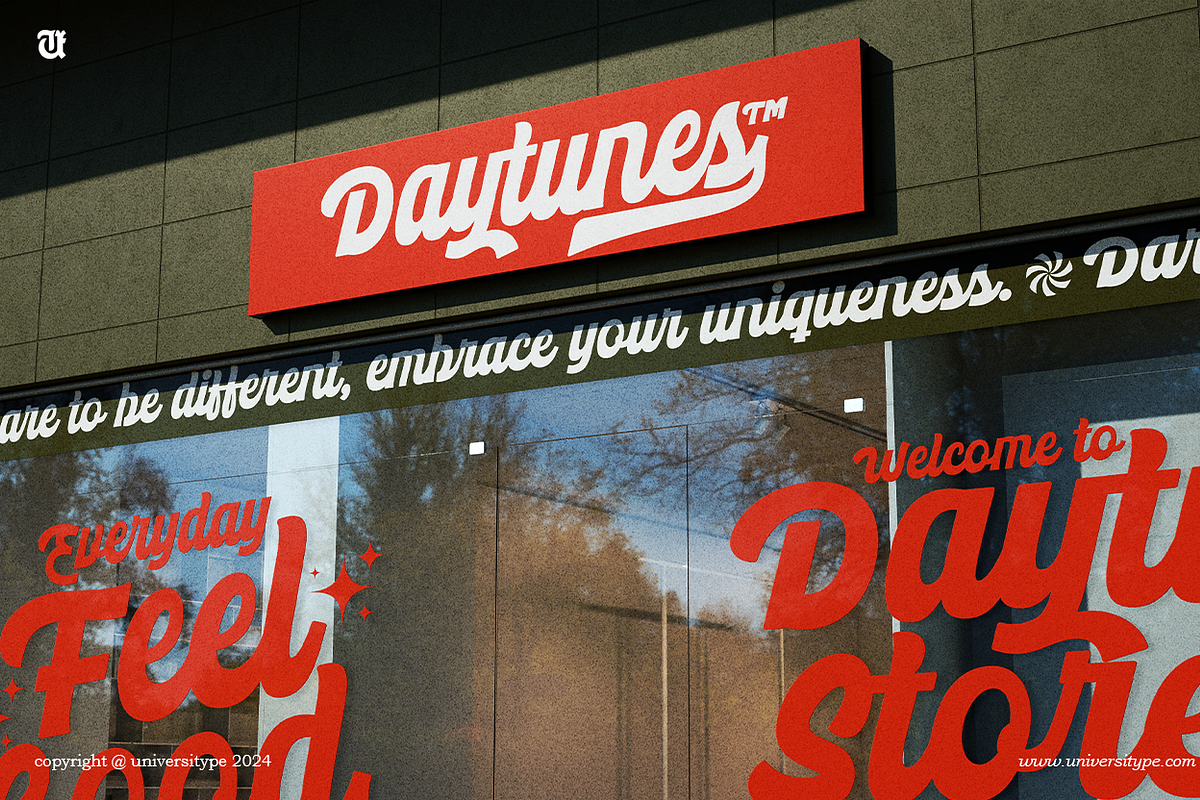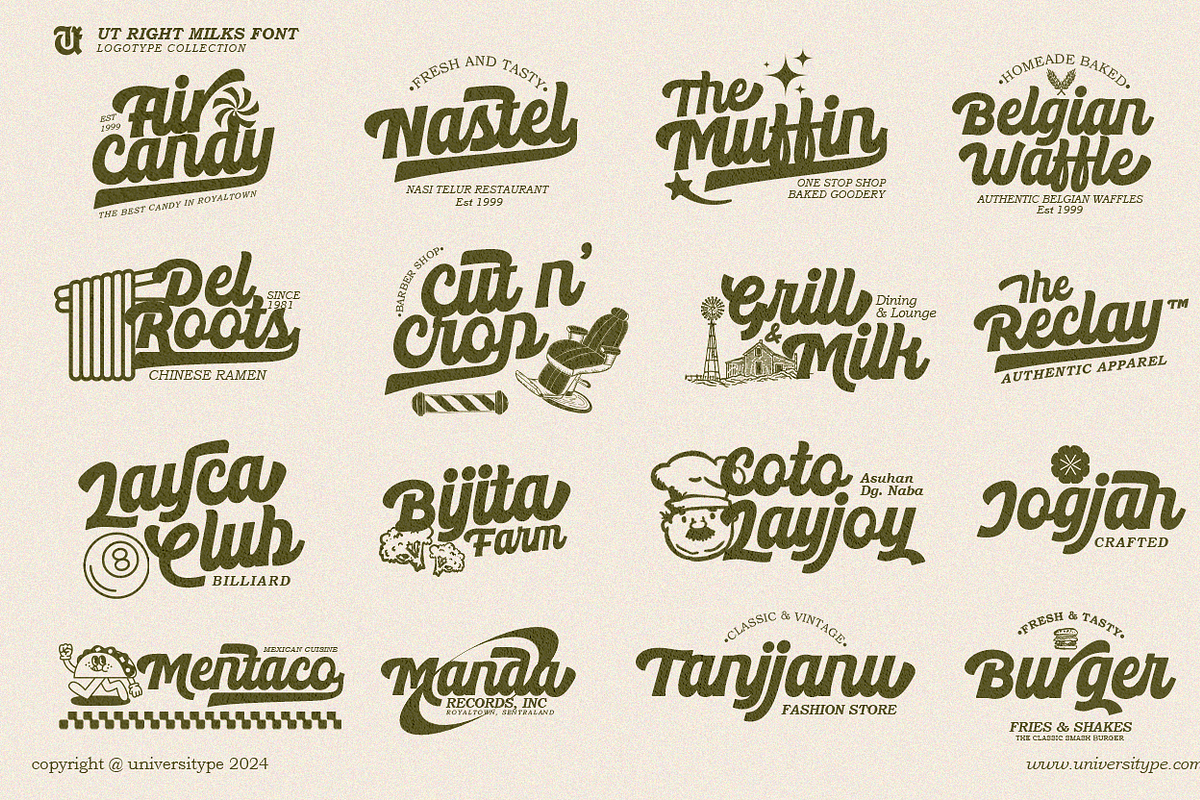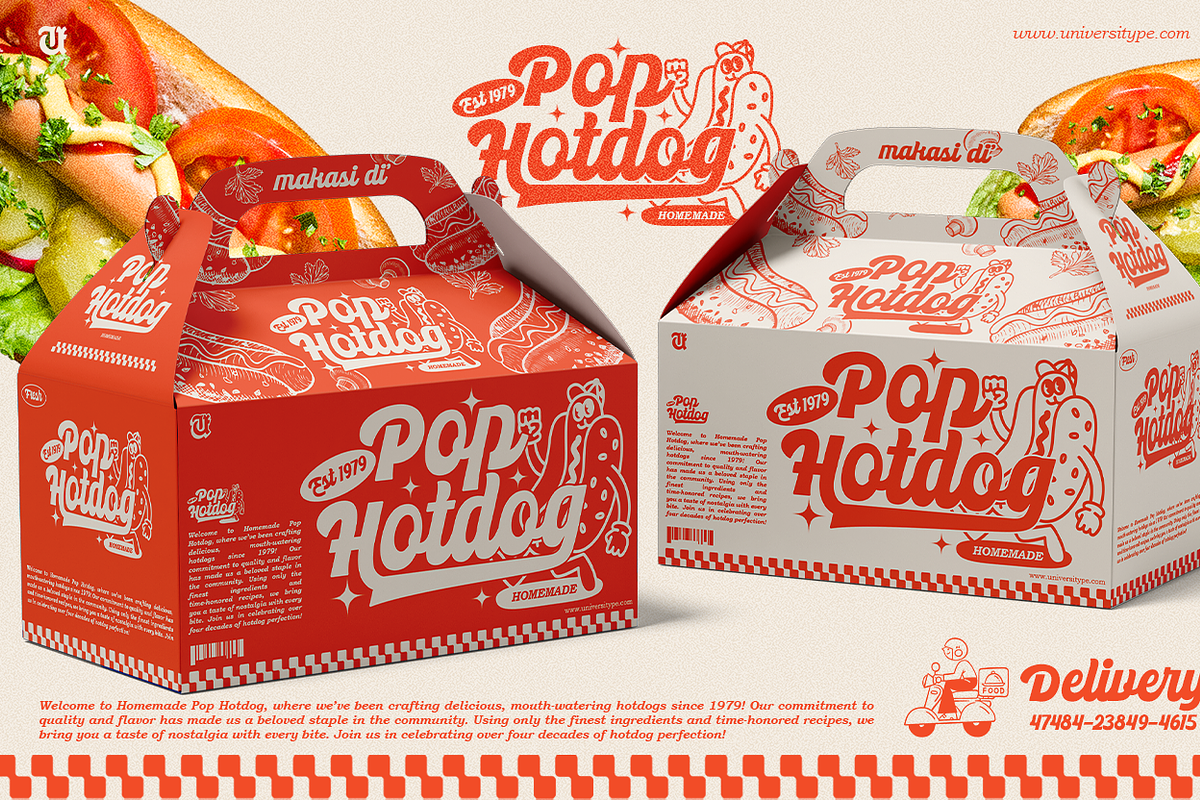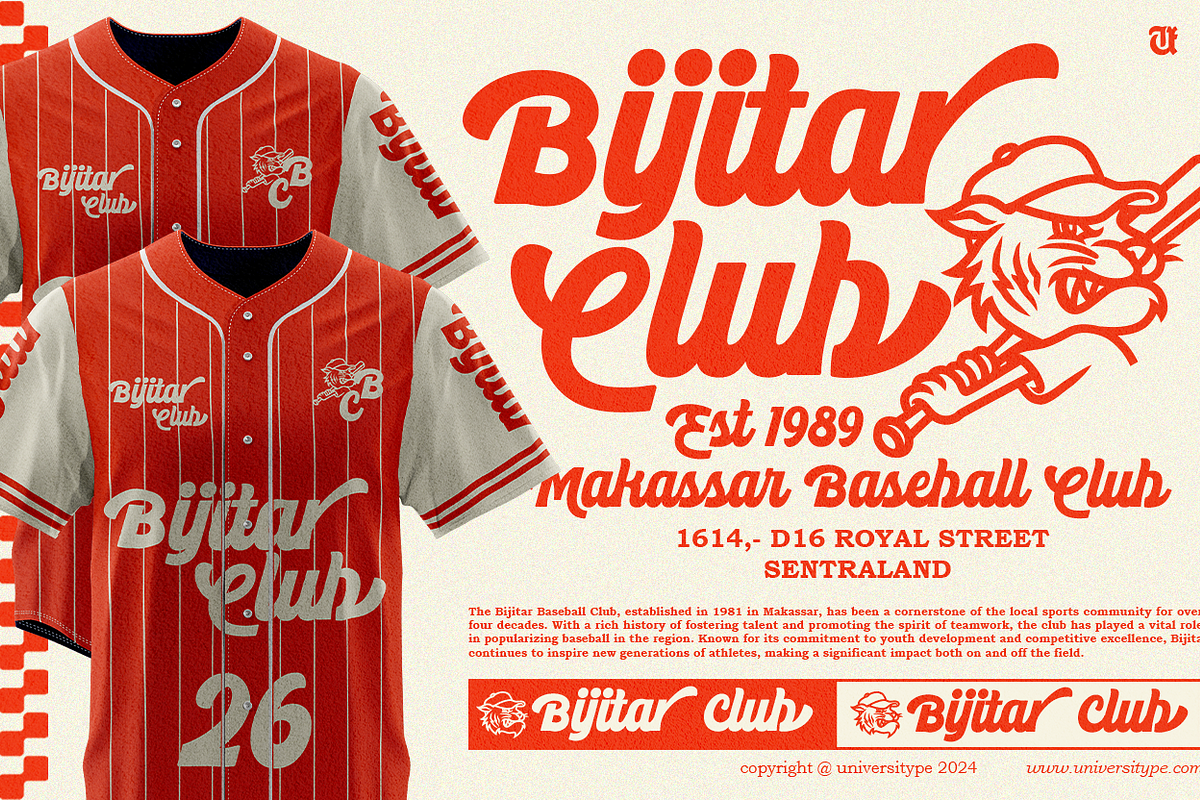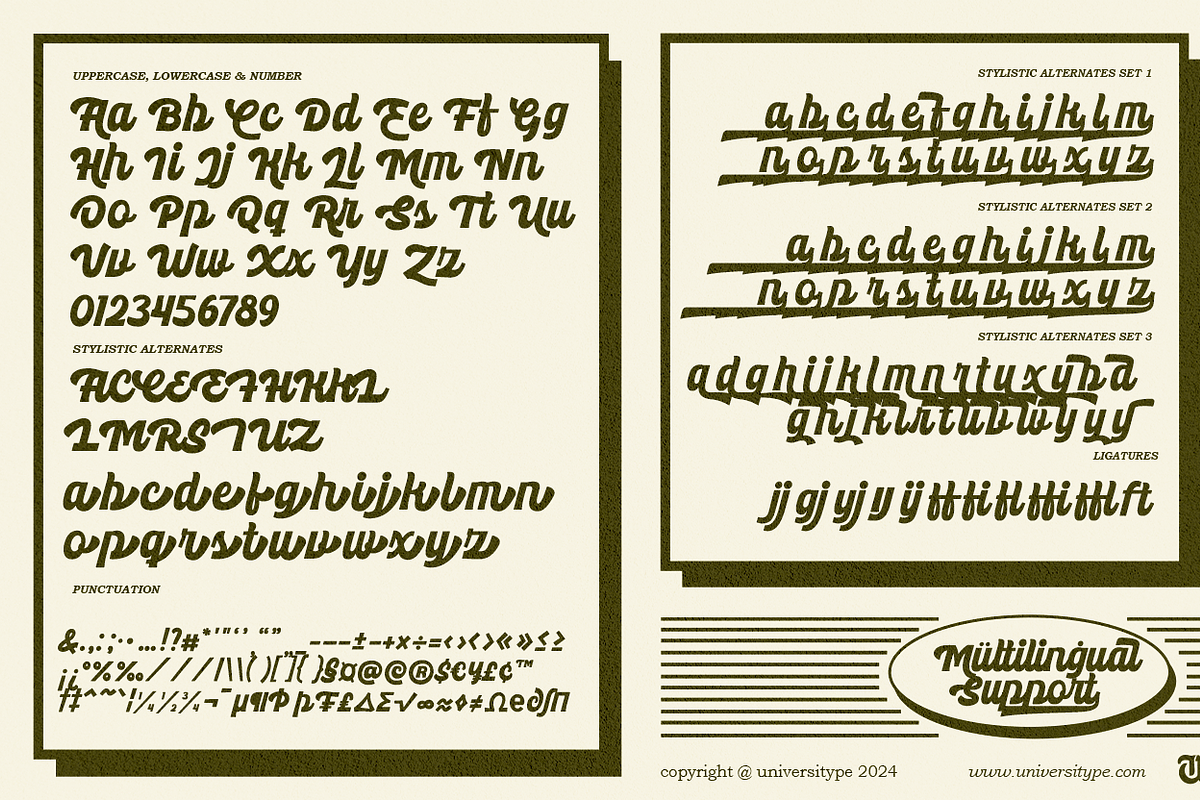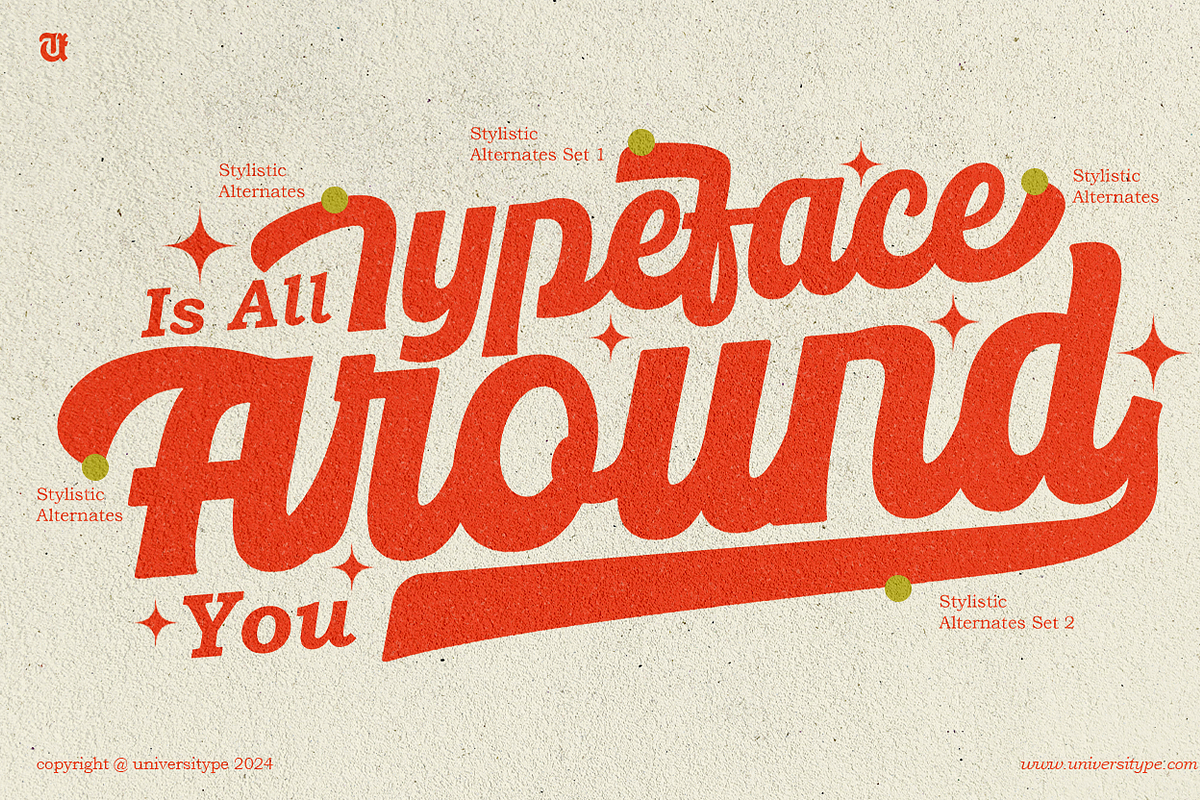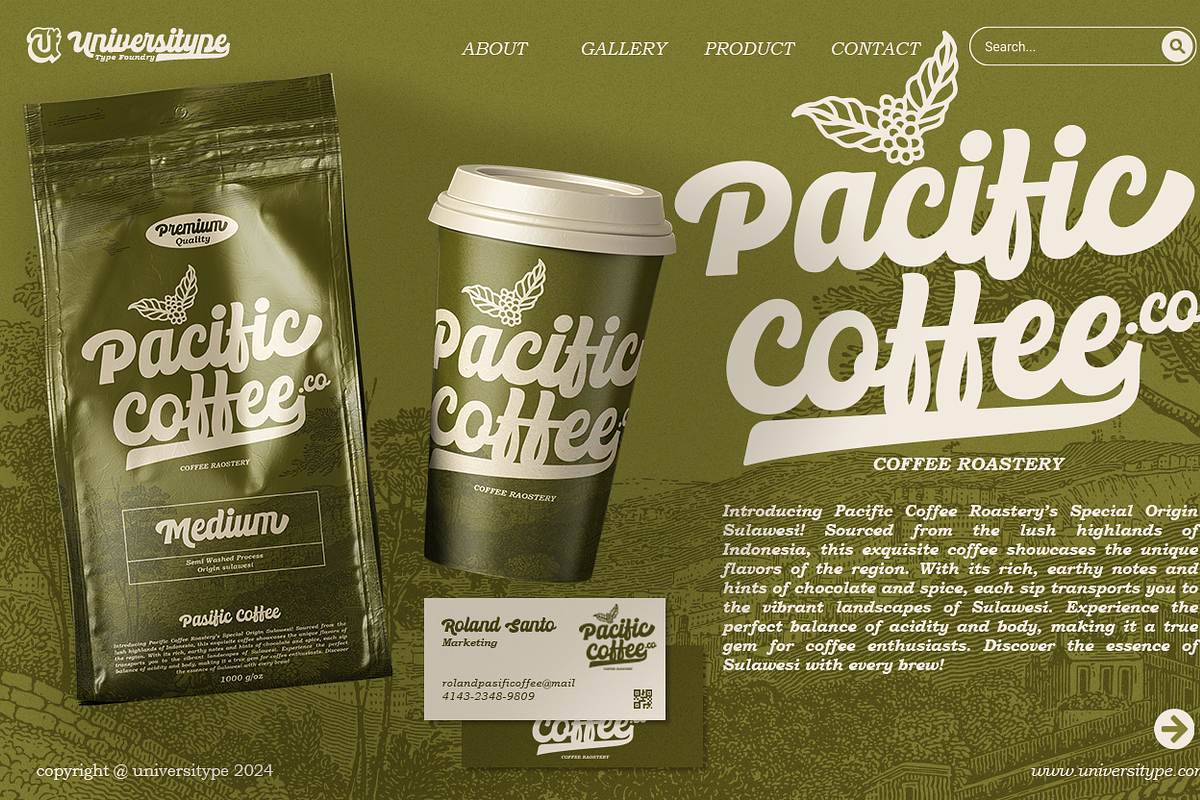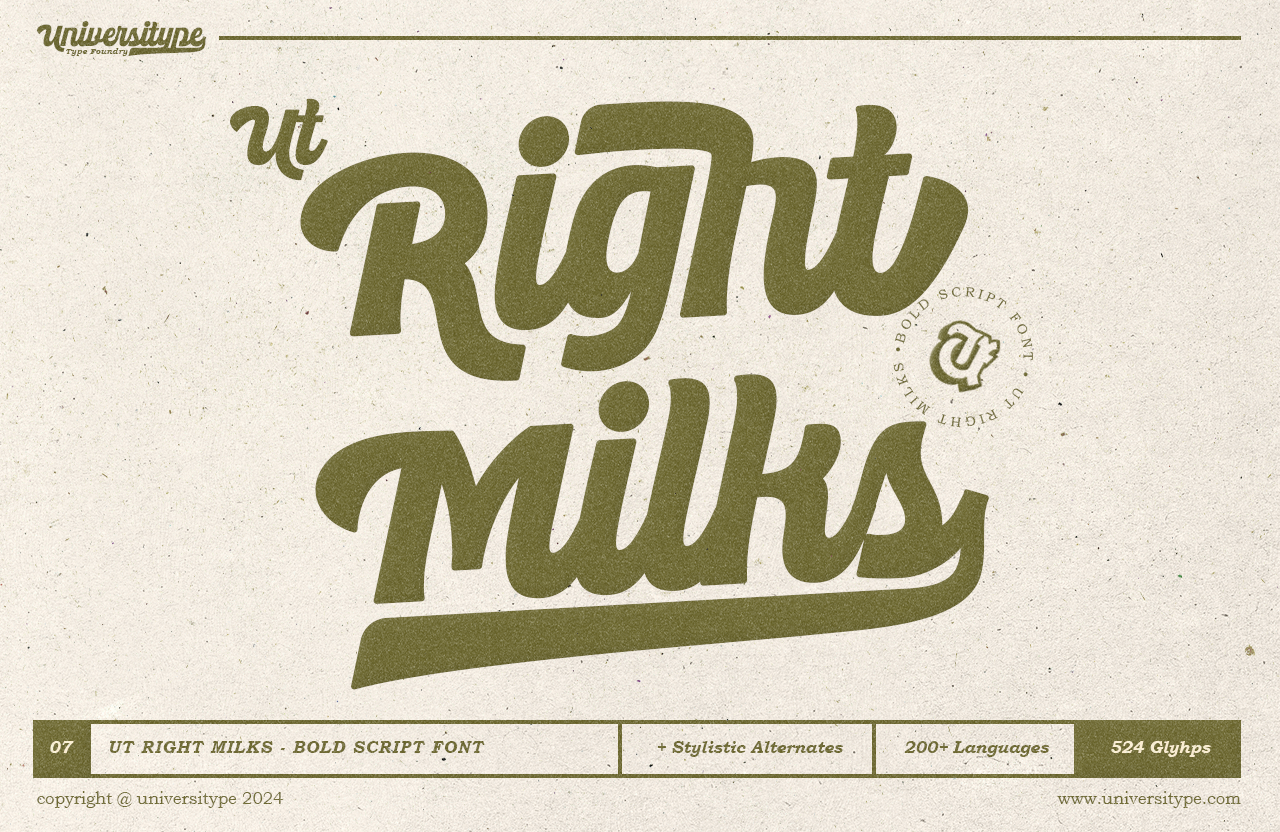
UT Right Milks - A Bold Script Font
UT Right Milks is a bold script font designed to solve a problem for designers: finding a typeface that combines eye-catching boldness with flexibility for a range of creative projects. Traditional bold scripts often lack the versatility and legibility needed for diverse design applications, leaving designers with rigid options that fall flat in branding and digital materials. UT Right Milks addresses this issue by offering a smooth, flowing script with confident strokes, while providing extensive customization features like 524 glyphs, 3 stylistic sets, and ligatures.
This font is the perfect solution for designers facing the problem of repetitive typography or limited creative control. Whether it’s for branding, marketing campaigns, or web design, UT Right Milks makes sure your designs stand out while maintaining readability. Additionally, its support for over 200 languages ensures global reach, resolving the challenge of finding a bold script that works across different markets and audiences.
Target Audience: Branding specialists seeking to elevate logos with a distinctive, bold script. Designers and marketers in need of a versatile, dynamic font for promotional materials. Social media content creators looking for a font that instantly captivates and communicates personality.
- 524 Glyphs: Packed with stylistic alternates, ligatures, and swashes for ultimate creative control.
- Multilingual Support: Supports over 200 languages, ensuring your message reaches a global audience.
- Versatile Styling: Offers 3 stylistic sets for creative variations and enhanced typographic expression.
- Legibility with Style: Maintains clarity in various sizes, from large headlines to smaller body text.
Inspiration Behind the Design: The UT Right Milks brand combines classic style with contemporary adaptability, drawing inspiration from brush lettering and strong sign painting. Projects that require an approachable yet strong vibe will benefit greatly from the rounded, hand-drawn look, which adds character and warmth.
Usage Suggestions:
- Branding & Identity: Ideal for logos, packaging, and labels where bold, stylish script can communicate brand identity.
- Editorial Design: Perfect for magazine headers, brochures, and advertising campaigns needing a bold statement.
- Web & Digital Media: Adds character to website headers, social media posts, and promotional banners.
- Merchandising: Great for apparel, accessories, and product packaging with a bold, playful flair.
Technical Details:
- Stylistic alternates
- 3 stylistic sets
- 524 glyphs
- Multilingual Support: Includes characters for over 200 languages